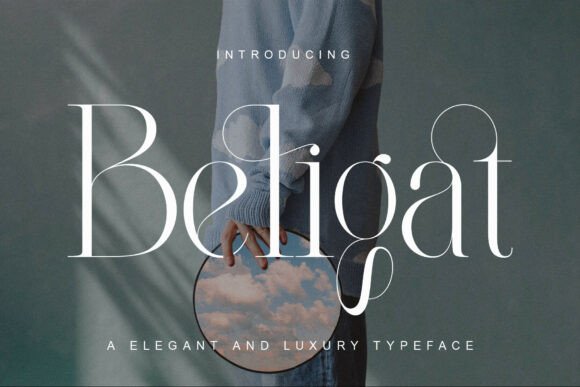
Beligat Font: Elevate Your Designs with Elegance and Sophistication
In the world of typography, a font can make or break the aesthetic of a design. For those seeking to infuse their projects with a touch of elegance and sophistication, the Beligat font is an exceptional choice. This modern ligature serif font is designed to evoke the beauty of fresh blooms and timeless elegance, making it perfect for upscale designs in florals, fashion, and high-end branding.
The Essence of Beligat: A Modern Twist on Classic Elegance
Beligat is more than just a font; it’s an experience. With its bold yet refined ligatures, this typeface stands out as a sophisticated and feminine addition to any design project. The beauty of Beligat lies in its ability to pair the charm of classic serif styles with a modern twist, creating a unique and captivating visual identity.
Key Features of Beligat Font
- Elegant Ligatures: Beligat boasts beautiful ligatures that add a touch of sophistication to any text, making it perfect for high-end designs.
- Modern Serif Style: The font’s modern serif style ensures that it remains relevant and fresh, while still paying homage to traditional typography.
- Feminine Touch: Beligat’s refined and elegant appearance gives it a distinctly feminine touch, ideal for designs that require a soft, graceful presence.
- Versatility: Whether you’re working on floral designs, fashion branding, or upscale marketing materials, Beligat is versatile enough to elevate any project.
The Art of Typography: What Makes Beligat Stand Out
Typography is an art form that can dramatically influence the perception of a design. Beligat’s unique combination of classic and modern elements sets it apart from other fonts. Every letter in the Beligat font feels intentional, with a soft and graceful presence that can transform even the simplest text into a stunning visual statement.
The Psychology of Elegance in Design
Elegance in design often speaks to a sense of sophistication and refinement. When it comes to typography, elegance can evoke feelings of luxury, quality, and attention to detail. Beligat, with its delicate serifs and flowing ligatures, brings a sense of natural grace to any design, making it an excellent choice for brands that want to convey a message of refinement and style.
Applications of Beligat Font: Where Elegance Meets Versatility
The versatility of Beligat makes it suitable for a wide range of design applications. Here are some of the areas where Beligat truly shines:
1. Floral and Botanical Designs
Floral designs require a level of elegance and delicacy that Beligat effortlessly provides. The font’s ligatures and flowing serifs complement floral patterns and illustrations, creating a cohesive and visually appealing design.
2. Fashion Branding
In the fashion industry, branding is everything. Beligat’s sophisticated and feminine appearance makes it an ideal choice for fashion brands looking to convey luxury, style, and elegance.
3. High-End Marketing Materials
For high-end brands, marketing materials need to reflect a level of sophistication and quality. Beligat helps create visually stunning brochures, business cards, and advertisements that exude elegance and refinement.
4. Wedding and Event Design
Weddings and special events often call for designs that are romantic and elegant. Beligat’s graceful presence makes it perfect for invitations, menus, and other event-related materials.
How to Use Beligat Effectively in Your Designs
To truly benefit from the elegance of Beligat, consider the following tips for effective use:
1. Pair with Complementary Fonts
While Beligat is beautiful on its own, pairing it with complementary fonts can enhance its appeal. Consider using sans-serif fonts for headings and Beligat for body text to create a balanced design.
2. Utilize Ligatures
Beligat’s ligatures are one of its standout features. Make sure to use them to add a touch of elegance and uniqueness to your text.
3. Adjust Line Spacing and Kerning
For maximum impact, pay attention to line spacing and kerning. Proper spacing ensures that Beligat’s elegance shines through without overwhelming the reader.
4. Apply Subtle Colors and Textures
Beligat works best with subtle colors and textures that enhance its refined appearance. Soft pastels, creams, and gold accents can complement the font beautifully.
Conclusion: Elevate Your Designs with Beligat
In a world where design is everything, choosing the right typography can make all the difference. Beligat font offers a unique blend of elegance, sophistication, and modernity, making it an excellent choice for designers looking to elevate their projects. Whether you’re working on floral designs, fashion branding, or high-end marketing materials, Beligat brings a touch of refinement and natural grace that can transform any design into a work of art.
Embrace the Beauty of Beligat
Beligat is more than just a font; it’s a design statement. With its elegant ligatures, modern serif style, and feminine touch, it provides the perfect combination of style and sophistication. Bring a touch of refinement and natural grace to your work with Beligat, and watch your designs flourish with style and character.